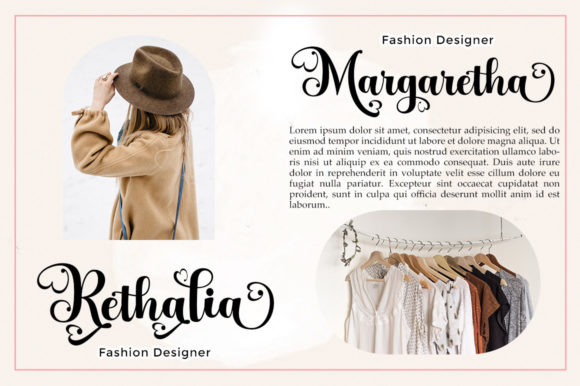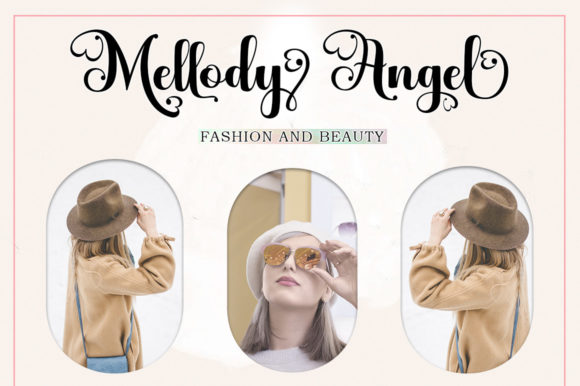
Rafting Script Font
db-ku.com - Script & Handwritten -- Rafting Script is a romantic, round lettered and distinct script font. It has a beautiful and balanced character, that fits well with the large design pool. This font is PUA encoded which means you can access all of the glyphs and swashes with ease.